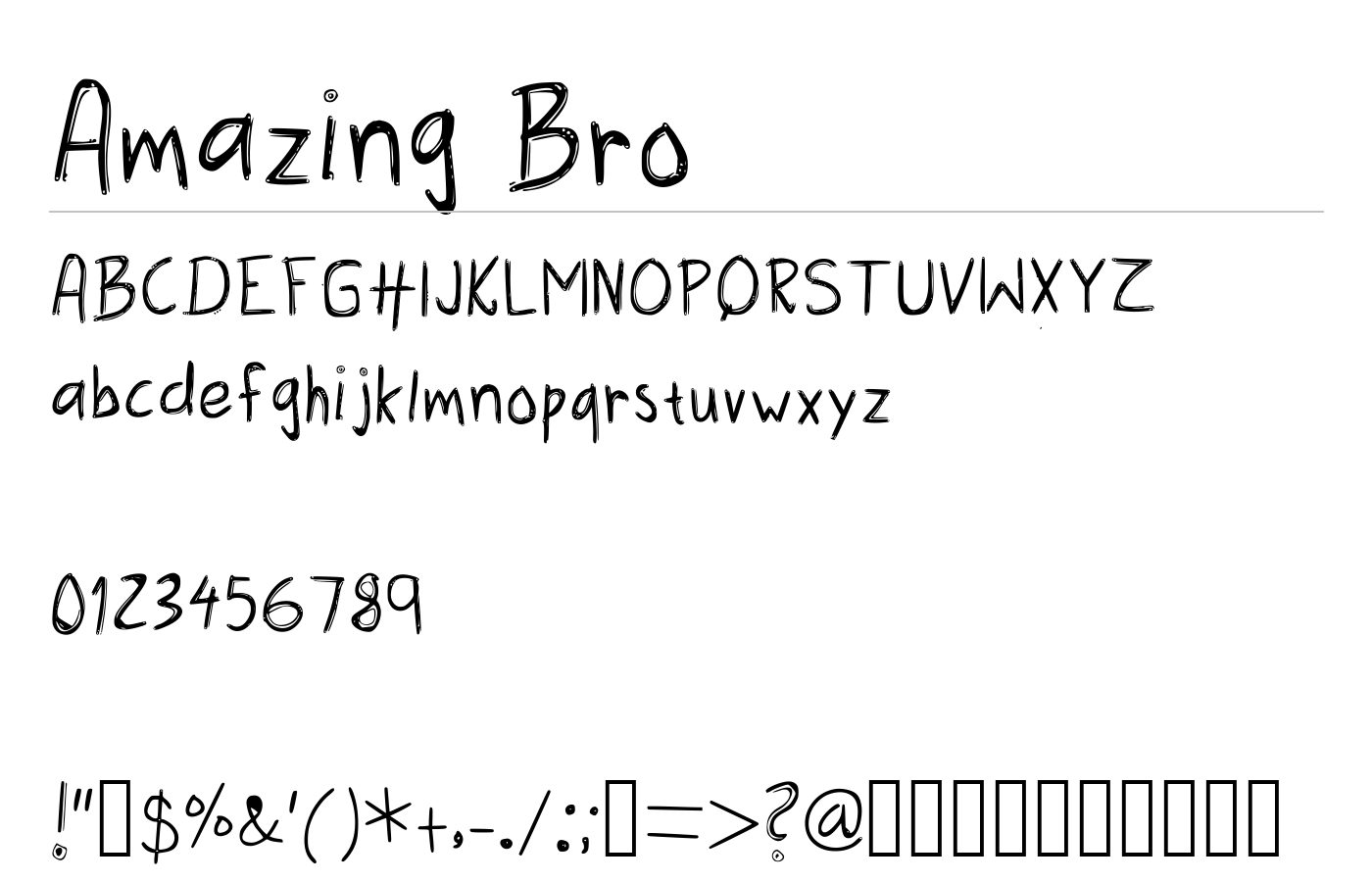
Amazing Bro is a casual, handwritten sans serif font with a playful and quirky character, featuring irregular, slightly rough strokes and a thin to regular weight. Its tall, narrow letterforms with irregular line textures convey a friendly, informal vibe that works well for creative projects, children’s materials, or casual branding. This font shines in casual headlines, invitations, or any design that benefits from an approachable, hand-drawn feel.
Amazing Bro Font
About Amazing Bro Font